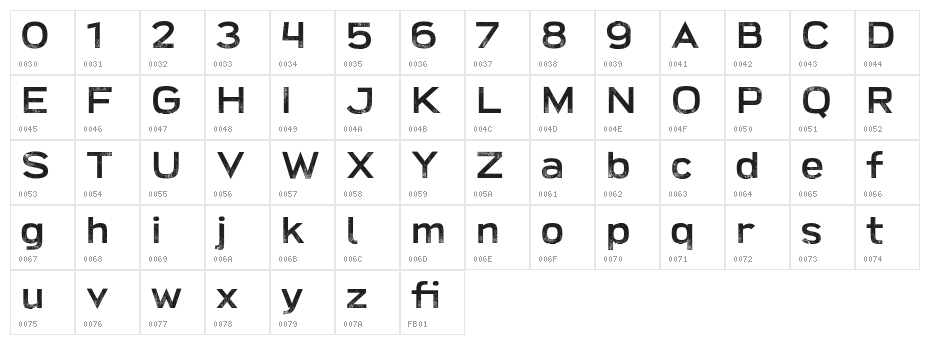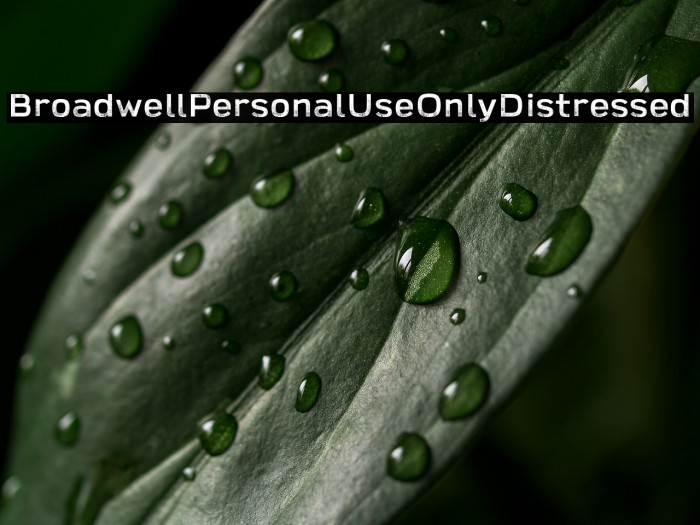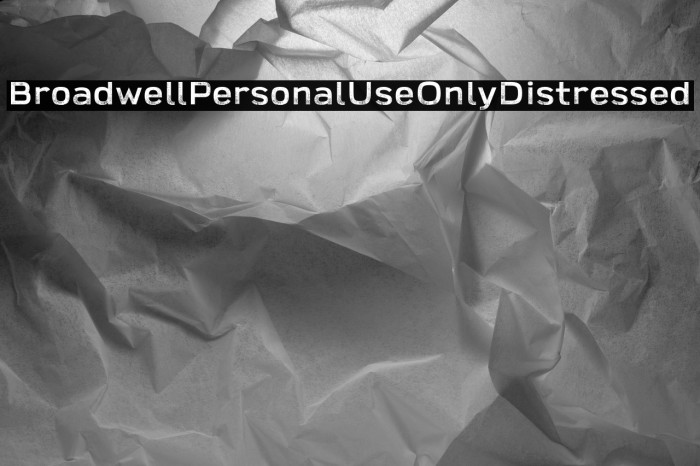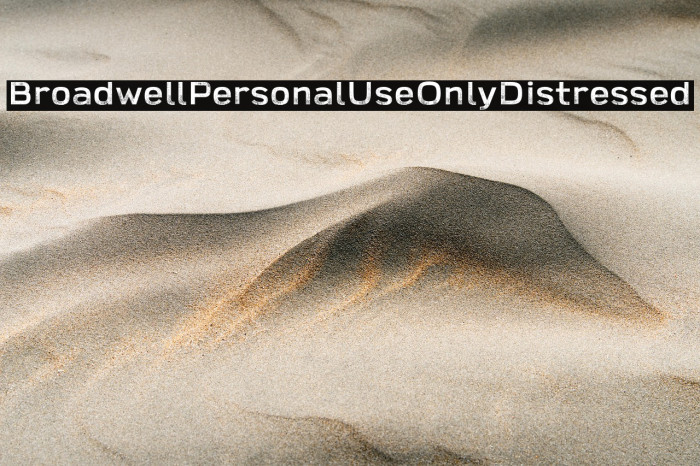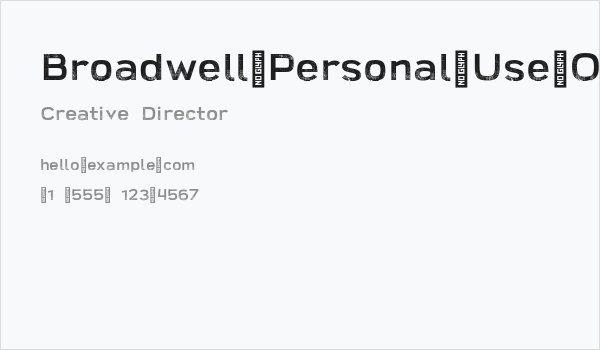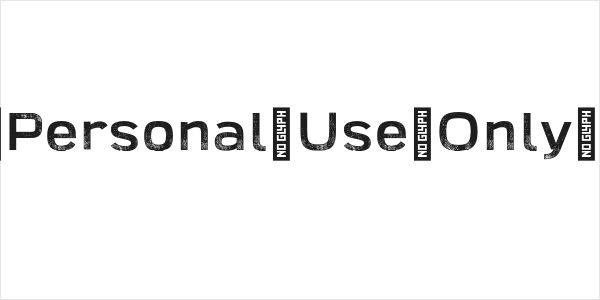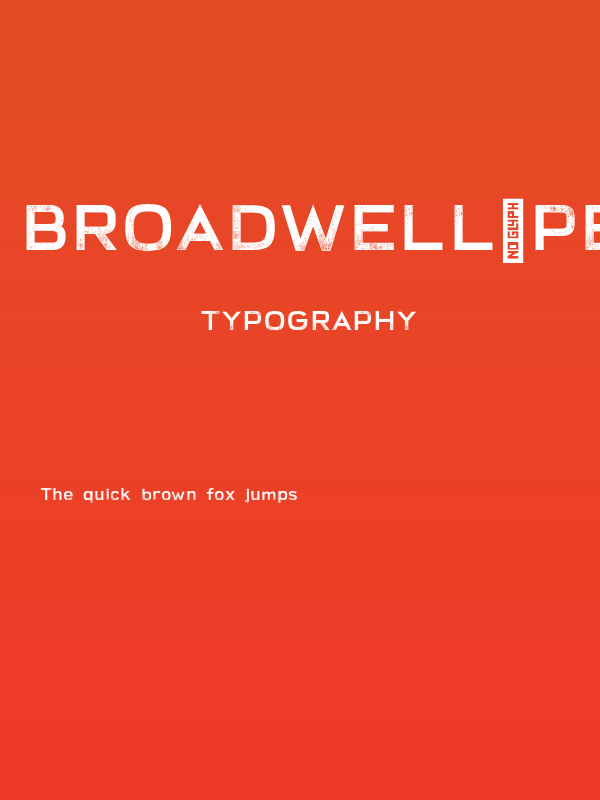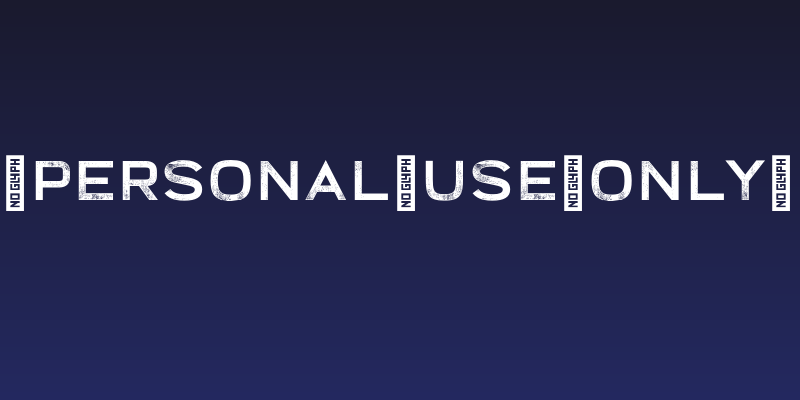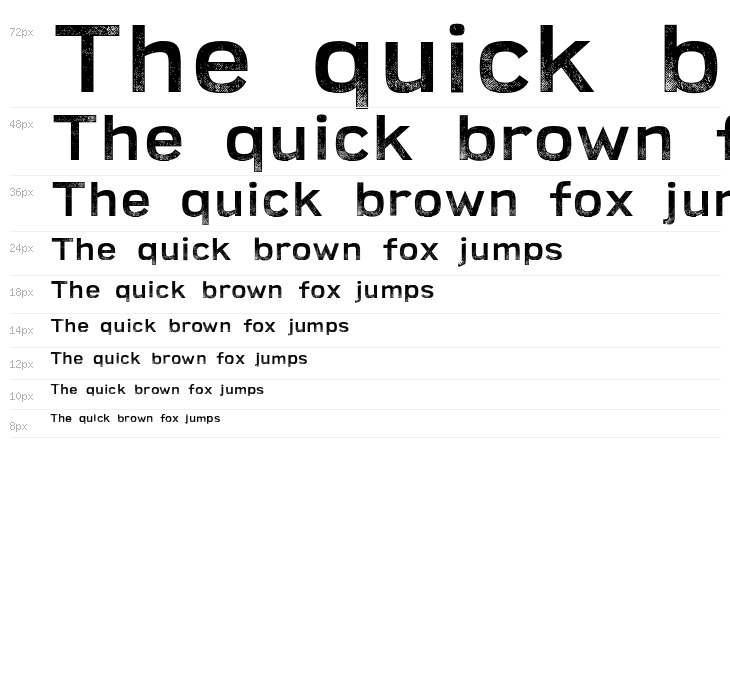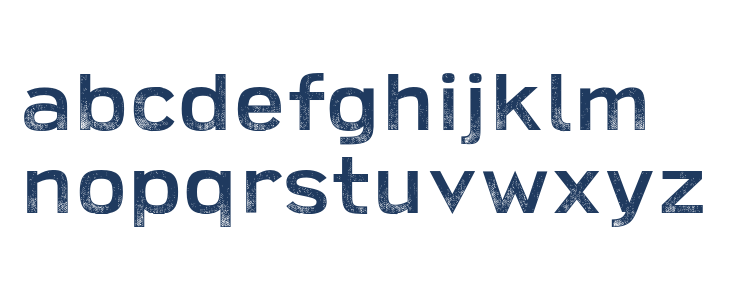
Broadwell-Personal-Use-Only-Distressed Font
Broadwell-Personal-Use-Only-Distressed Description
This font features a distressed, textured appearance that gives it a rugged and vintage feel. The uppercase and lowercase letters are bold and slightly condensed, with a consistent texture that mimics wear and tear. The numerals follow the same style, maintaining uniformity across the character set. The absence of special characters suggests a focus on basic alphanumeric use. The font's design is ideal for projects that require a rustic or industrial aesthetic, such as posters, branding, or packaging that aims to convey authenticity and a handcrafted touch.
| Proposed Projects | Ideal for vintage-themed posters, branding, packaging, and any design needing a rustic touch. |